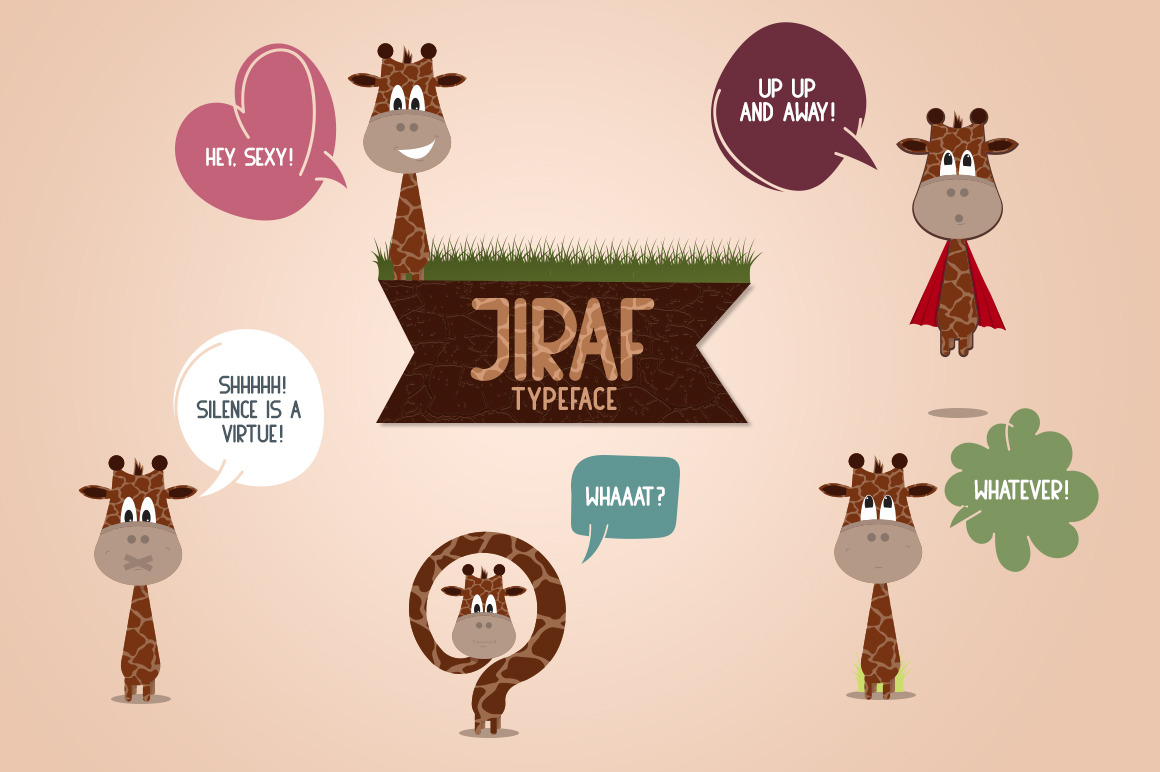
Jiraf Typeface
Jiraf is his name. His sunny disposition always sees him through. Jiraf is silly and maybe goofy but at the same time he is elegant and sharp. Jiraf is here to give a hint of joy and happiness to your designs.
- Uppercase letters
- Lowercase letters
- Bold and Normal font weights
- all the special characters
- 2 more weights (light and extra bold)
- different styles like Outline, Shadow, Textured and Italics